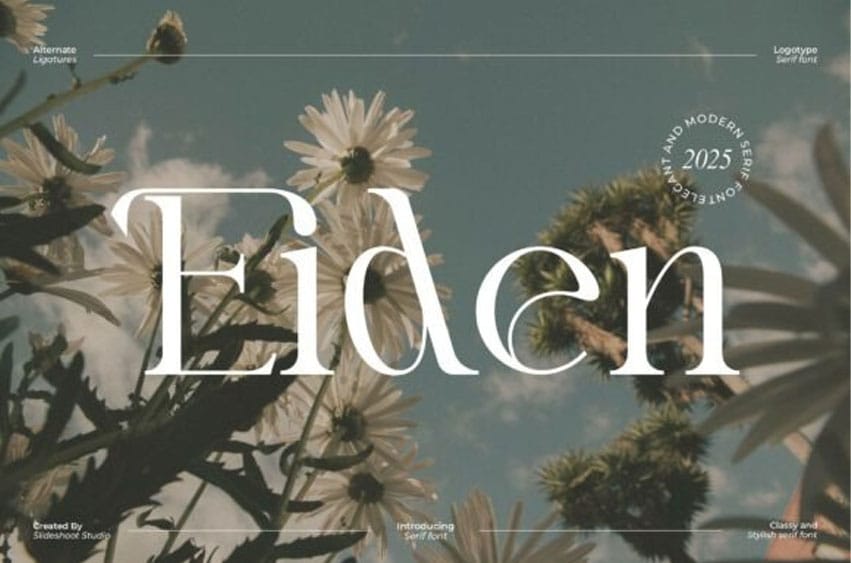
Eiden Font Serif is a modern, elegant serif typeface designed to elevate branding and logo projects with refined sophistication. Characterized by smooth contours and a graceful presence, this font blends classic structure with contemporary charm. Its thoughtfully designed ligatures and stylish letterforms make it a standout choice for a wide range of applications—from invitation cards and business cards to book covers, movie titles, brand identities, and more.
Versatile yet distinctive, Eiden Serif brings a sense of poise to both print and digital compositions. All glyphs and swashes are fully PUA encoded, ensuring easy access across all design platforms.